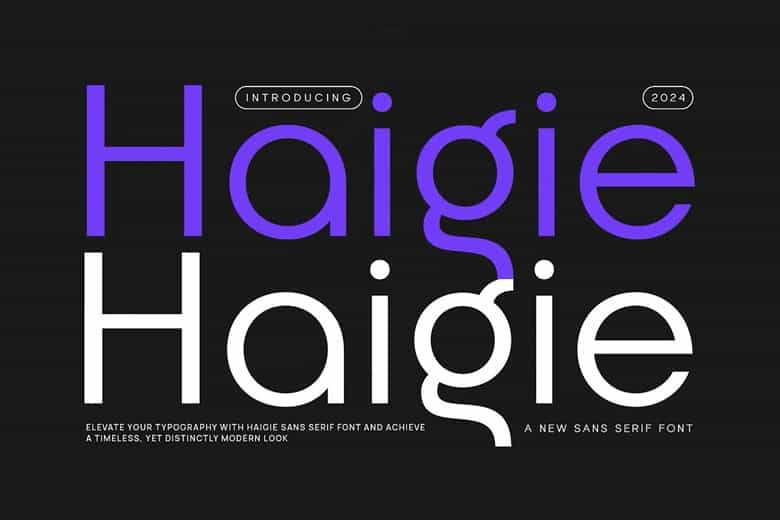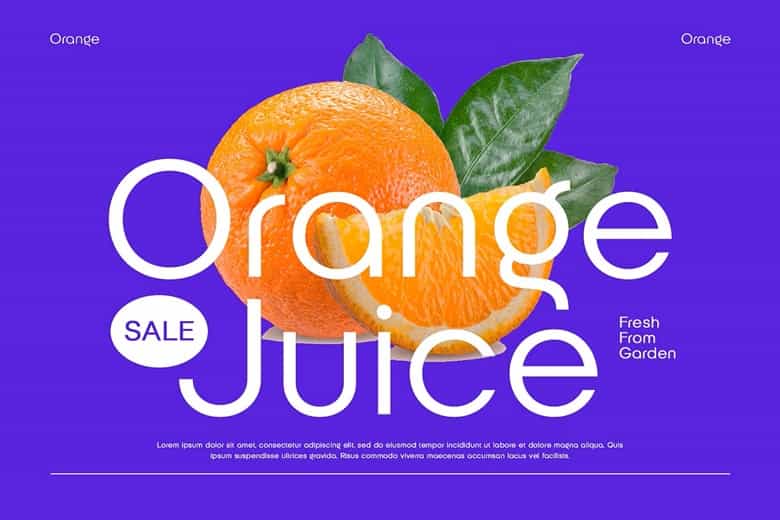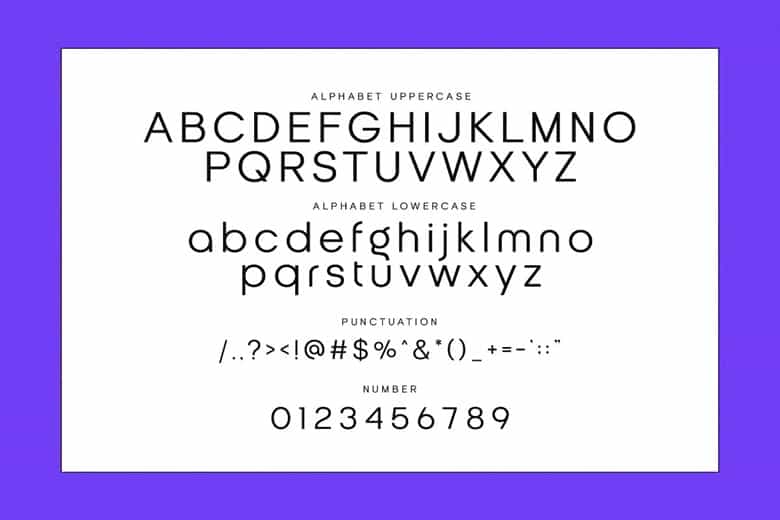
Haigie is a new sans serif font. Whenever you look for a font, you will find this font very useful for your fonts’ library as any creation will make use of this. Haigie is a modern and very simple font for using it in display purpose especially in headings, logos, branding, magazines, product packaging and invitations.